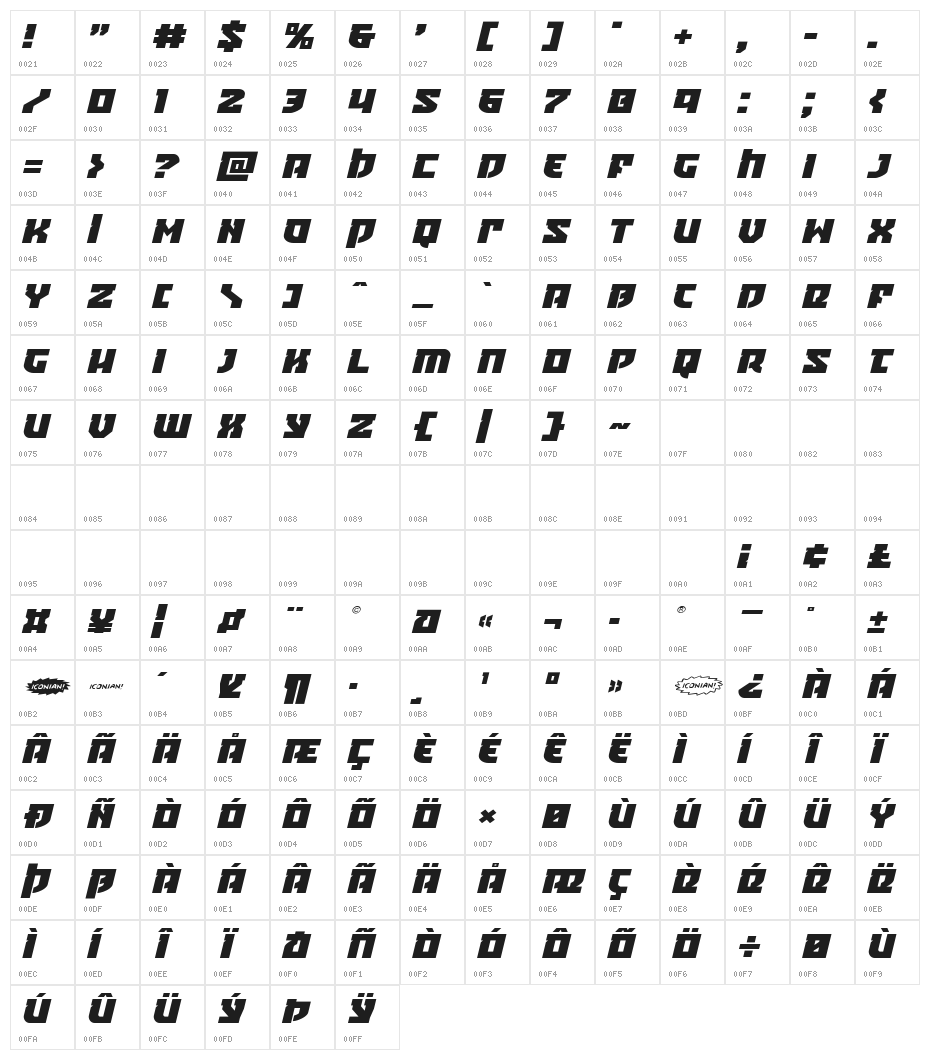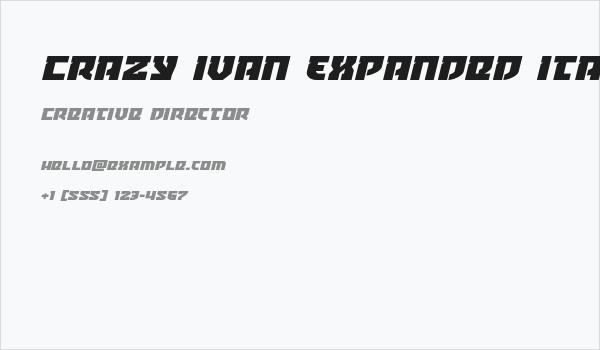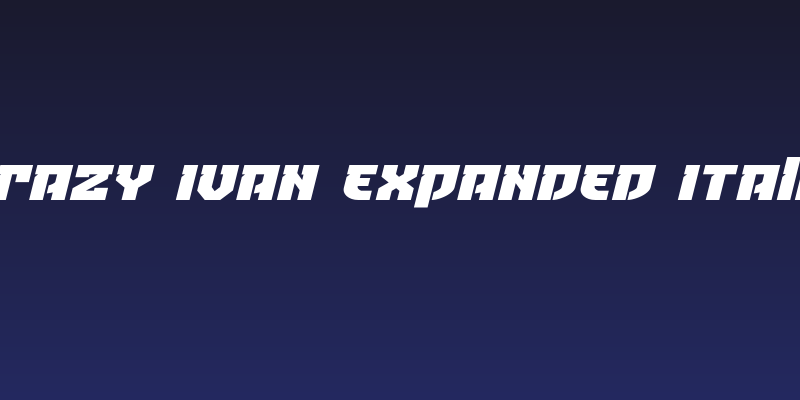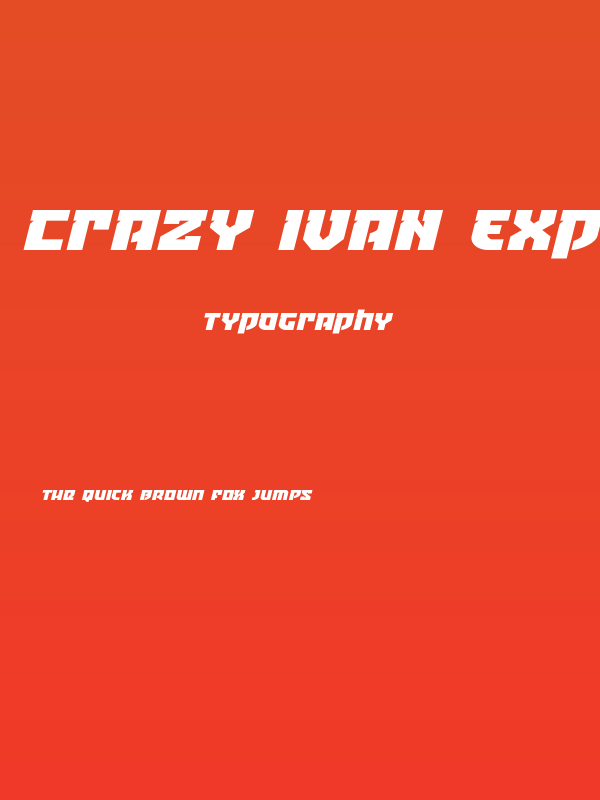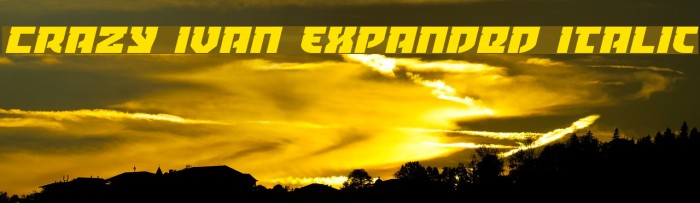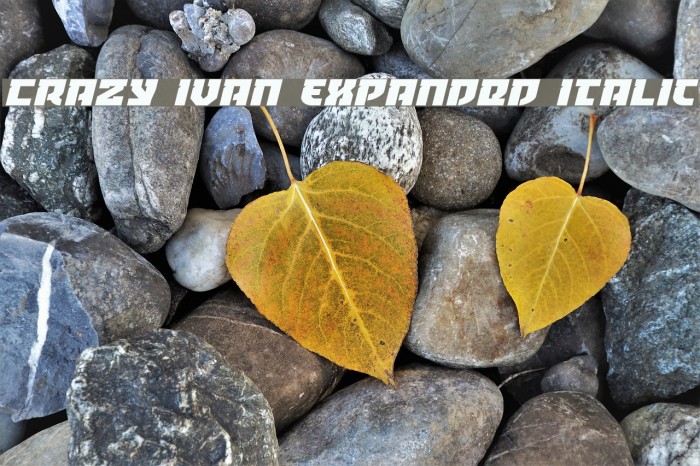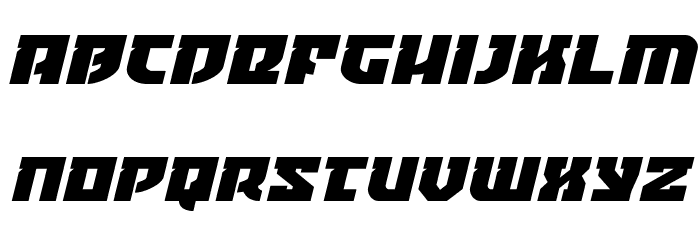
Crazy Ivan Expanded Italic Font
This font features a bold and dynamic design with an italic slant, giving it a sense of motion and energy. The characters are expanded, providing a wide stance that enhances readability while maintaining a strong visual impact. The angular and geometric shapes of the letters contribute to a modern and edgy appearance, making it suitable for attention-grabbing headlines and titles. The font includes a full set of uppercase and lowercase letters, numerals, and a variety of special characters, ensuring versatility in design applications. Its unique style is ideal for projects that require a bold statement, such as posters, branding, and advertising.
| Proposed Projects | Ideal for posters, branding, advertising, and any project requiring a bold statement. |